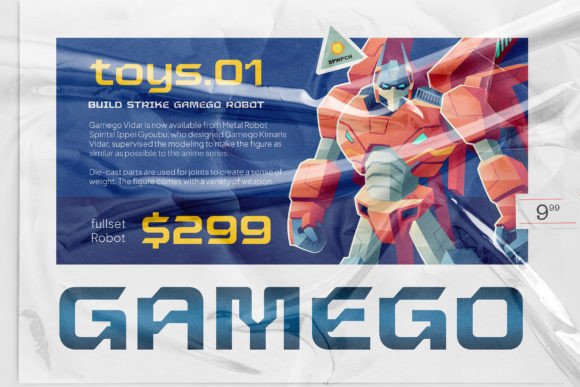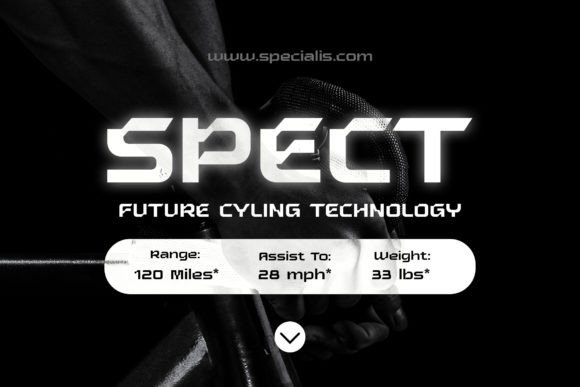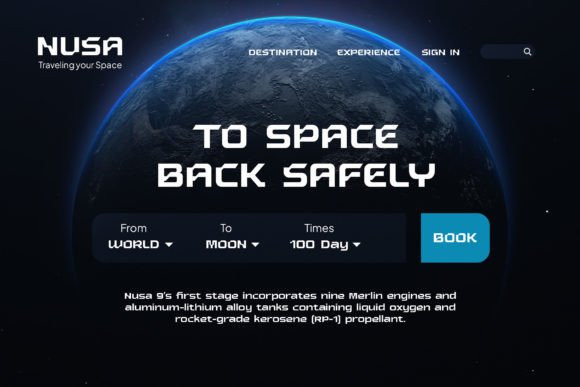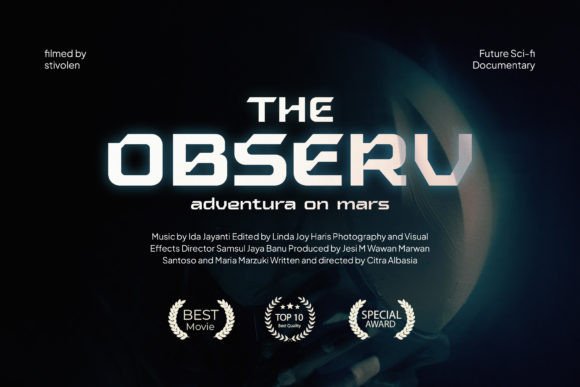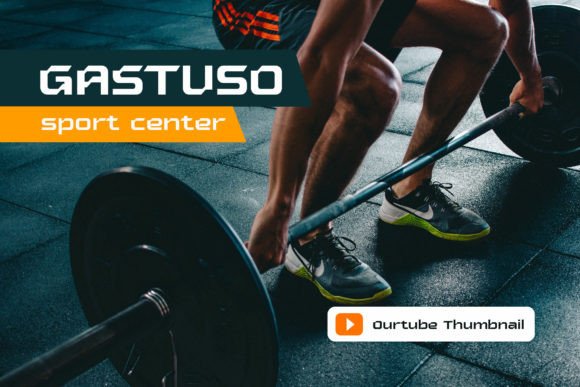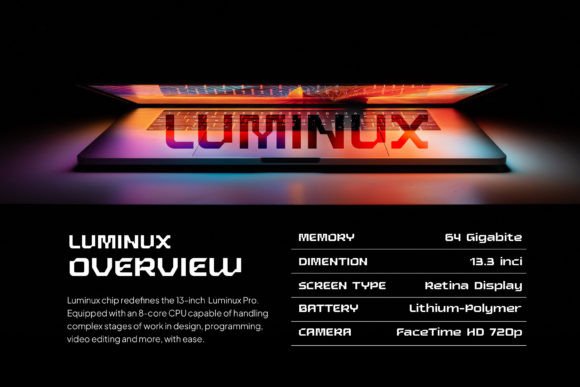
Introduction to Quezord Font
Have you ever stared at a blank canvas, your mind racing with ideas, but struggling to find the perfect font to bring your creative vision to life? That’s where the Quezord Font comes in – a technologically advanced, futuristic sans serif font that’s out of this world.
Perfect for designers looking to add a touch of high-tech sophistication to their projects, the Quezord Font is a valuable resource that can elevate even the most mundane designs into something truly extraordinary. With its bold, black aesthetic and clean lines, this font is ideal for a wide range of applications, from logo branding and editorial designs to e-sport and music posters.
- Unique, modern design ideal for creative projects and design resources.
Honest Review: Quezord Font
Upon closer inspection, I was impressed by the font’s versatility and high quality. The Quezord Font features a transparent background, making it easy to layer and blend with other design elements.
- ✨ Unique and modern design aesthetic
- ✨ High-quality vector format for crisp and clear display
- ⚠️ Limited font family options
- ⚠️ Not ideal for large-scale text due to its modern and minimalist design
Overall, I’m impressed by the Quezord Font and would definitely consider using it for my future design projects. Its unique design and high quality make it a valuable addition to any designer’s toolkit.
The Quezord Font is perfect for a variety of creative projects, including:
• Social media graphics
• Infographics
• Presentations
• Documents
• Marketing materials
Is the Quezord Font a high-quality design resource?
Yes, the Quezord Font is a high-quality design resource that is carefully crafted to meet the needs of designers and artists. Our font is designed to be versatile and easy to use, making it an ideal choice for a wide range of creative projects, from logos and branding to typography and web design. We’re confident that the Quezord Font will become a valuable addition to your design resource library.